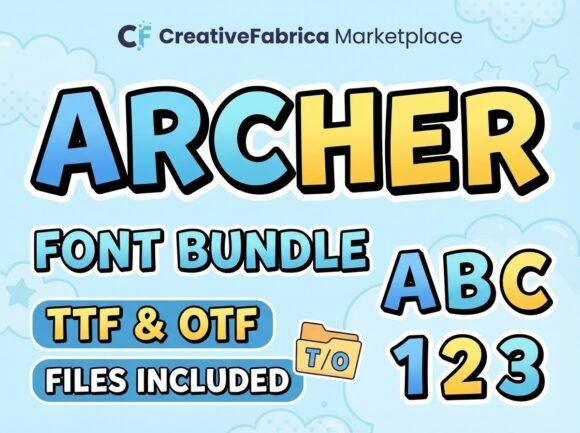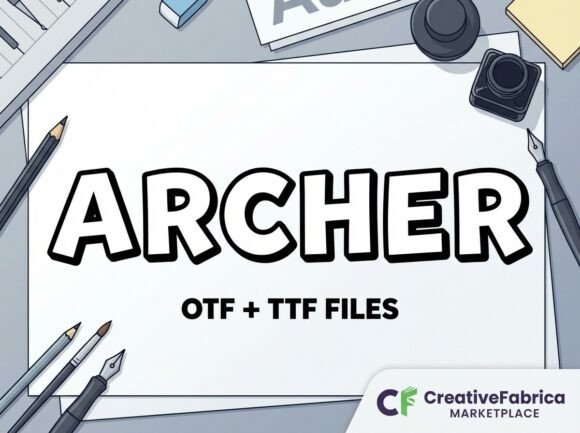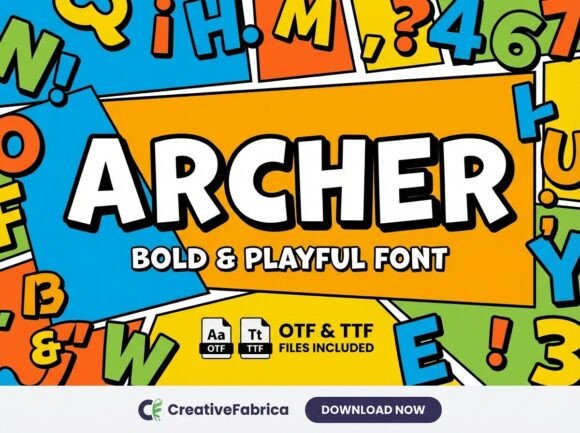
Introducing Archer Font: The Ultimate Decorative Display Font
Are you tired of using the same old fonts in your designs? Look no further than Archer Font, a stunning decorative display font that’s sure to turn heads. With its unique artistic elements and strong visual personality, this font is perfect for creators who want to break away from the ordinary and make a statement.
Archer Font is designed to be the center of attention, featuring intricate details and creative letterforms that are sure to make your designs stand out. Whether you’re creating a modern poster, a unique brand identity, or eye-catching social media content, this font adds an instant “wow” factor to any project. With its bold and artistic style, Archer Font is perfect for high-impact designs where the typography needs to do the talking.
One of the best things about Archer Font is its versatility. This font is not just limited to one or two design applications, but can be used in a variety of creative projects, including:
- Poster Design: Create headlines that people can’t look away from. Archer Font is perfect for designing posters that need to grab attention and make a lasting impression.
- Branding & Logos: Build a unique identity for creative businesses. With its artistic and bold style, Archer Font is ideal for creating logos and brand identities that stand out from the crowd.
- Apparel & Merch: Perfect for T-shirts, hoodies, and tote bag designs. Add a touch of personality to your apparel and merchandise with Archer Font.
- Social Media: Make your quotes and announcements stand out in the feed. Archer Font is perfect for creating eye-catching social media content that gets noticed.
- Packaging: Give your products a premium feel with Archer Font. This font is perfect for designing labels, packaging, and other materials that need to make a lasting impression.
Why Choose Archer Font?
So why choose Archer Font over other decorative display fonts? Here are just a few reasons:
- Unique and Artistic: Archer Font features unique artistic elements and a strong visual personality that sets it apart from other fonts.
- Professional and Polished: Despite its bold and artistic style, Archer Font maintains a professional and polished finish that’s perfect for high-end designs.
- High-Quality: Archer Font is a high-quality font that’s designed to deliver exceptional results in a variety of design applications.
Tips for Using Archer Font
Here are a few tips for using Archer Font in your designs:
- Use it Sparingly: Archer Font is a bold and attention-grabbing font, so use it sparingly to avoid overwhelming your design.
- Pair it with a Simple Font: Pair Archer Font with a simple font to create contrast and make your design more visually appealing.
- Have Fun: Most importantly, have fun with Archer Font! This font is designed to be creative and expressive, so don’t be afraid to push the boundaries and try new things.
In conclusion, Archer Font is a stunning decorative display font that’s perfect for creators who want to break away from the ordinary and make a statement. With its unique artistic elements, strong visual personality, and versatility, this font is ideal for a variety of design applications, from poster design and branding to social media and packaging. Whether you’re a designer, crafters, or DIY enthusiast, Archer Font is a must-have font that will add an instant “wow” factor to any project.